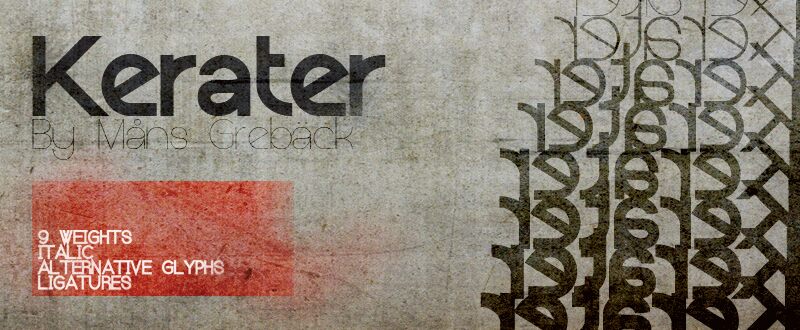
Kerater UltraLight by Mans Greback is a free modern display font with an exceptionally fine, near-monoline drawing. Its tall letters combine expansive round forms with narrow vertical shapes and keen triangular points. The generous width of several characters gives the design a sleek, architectural silhouette.
Fashion, architecture, and contemporary culture are convincing subjects for its restrained geometry, especially in magazine covers and gallery posters. On cosmetics packaging and boutique identities, the hairline construction supports a refined product image, and the broad curves can become a recurring line motif across labels and boxes.